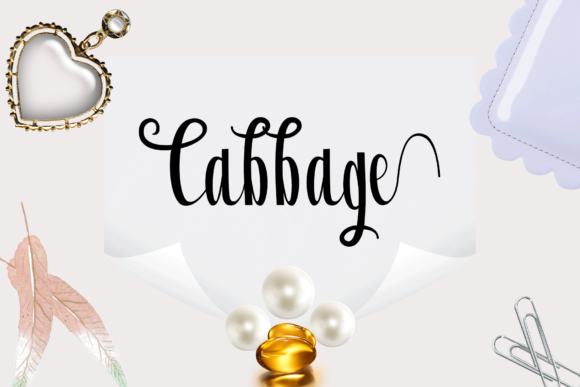
Step into a world of enchanting elegance with Cabbage Font, an exquisite script font that weaves a tapestry of timeless beauty into your design creations. Designed with the utmost care by the talented team at RT Creative 86, Cabbage Font is a captivating fusion of classic calligraphy with a touch of contemporary flair.
With its graceful strokes and enchanting swirls, Cabbage Font possesses an intrinsic charm that effortlessly adds a touch of sophistication and allure to any project. Whether you're crafting captivating logos, enchanting invitations, or simply adding a touch of personalized charm to your social media posts, Cabbage Font is your go-to companion for creating designs that resonate with grace and elegance.
Indulge in the versatility of Cabbage Font, a font that seamlessly adapts to a myriad of design styles. From the delicate charm of wedding invitations to the bold allure of marketing campaigns, Cabbage Font effortlessly elevates the visual impact of your creations. Its adaptability extends beyond aesthetics, as Cabbage Font is fully equipped with advanced OpenType features, ensuring seamless integration with the latest design software.
Unlock the gateway to creative freedom with Cabbage Font, a font that empowers you to unleash your imagination and craft designs that leave a lasting impression. Its meticulously crafted ligatures and alternate characters provide endless opportunities for customization, allowing you to create typographic masterpieces that truly stand out from the crowd.